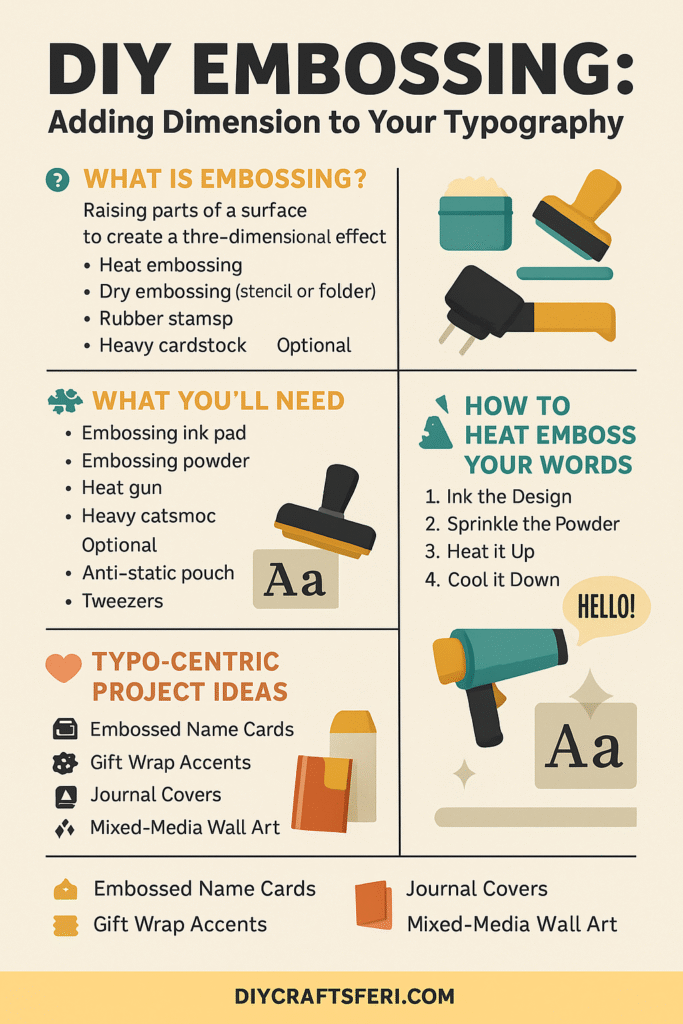
You know that glossy, slightly puffy lettering on fancy wedding invites? Yup, that’s embossing. And today, you’re going to learn how to make that magic yourself.
✨ What Is Embossing?
Embossing is the process of raising parts of a surface to create a three-dimensional effect. In our crafty world, it usually means:
Heat Embossing (the most common type for crafters)
Dry Embossing (pressed patterns, often using stencils or folders)
Today, we’ll focus on heat embossing, which is perfect for typographic projects. Because if there’s anything that deserves the spotlight, it’s your beautifully chosen fonts.
🛠️ What You’ll Need:
Embossing ink pad (clear, sticky ink)
Embossing powder (available in lots of colors and finishes!)
Heat gun (not a hair dryer—those don’t get hot enough!)
Rubber stamps or hand-lettering tools
Heavy cardstock or craft paper
Optional:
Anti-static pouch (to avoid stray powder specks)
Tweezers (unless you enjoy scalding your fingertips—your call)
🔡 Typography That Pops
Some font types emboss better than others. Here’s what to keep in mind:
Bold fonts look best—the raised surface highlights thicker strokes
Script fonts create beautiful flowing emboss lines
Outline fonts + embossing = crisp dimensional magic
Avoid ultra-thin or grungy fonts—they tend to lose detail in the powder melt
🧪 How to Heat Emboss Your Words
Ink the Design
Use your stamp or pen with embossing ink. Be generous—but not gloopy. -
Sprinkle the Powder
Immediately coat the inked area with embossing powder. Tap off the excess onto scrap paper and funnel it back into the container. Waste not! -
Heat It Up
Use your heat gun to melt the powder. Hold the gun a few inches away and keep it moving to avoid scorching. -
Cool It Down
Watch your design magically raise and shine. Let it cool completely before touching.
💌 Typo-Centric Project Ideas
1. Embossed Name Cards
Write names or words like “Cheers” or “Welcome” in a bold serif font and emboss them onto cardstock.
2. Gift Wrap Accents
Use letter stamps to add shiny, raised greetings on gift tags and wrap.
3. Journal Covers
Emboss empowering words or your initials on the front cover of a DIY journal.
4. Mixed-Media Wall Art
Combine hand lettering and embossing with paint, collage, or ink for a dynamic statement piece.
🔍 Font Pairing Tip of the Day:
Use a script font for the embossed word and a clean sans-serif for accompanying flat text or printed elements. The contrast creates both hierarchy and texture.
🧠 Unique Fact of the Day:
The embossing process was originally used in bookbinding in the 1400s to decorate leather-bound books. Back then, it was done with heavy metal presses. Now? Just a zap with your crafty heat gun and you’re in the embossing biz.
🧙♀️ Pro Tips:
Try metallic powders (gold, copper, silver) for extra drama
Use a light ink pad and colored powder combo for unique effects
Combine with watercolor backgrounds for a dreamy look
Want reverse embossing? Try resist embossing—stamp, emboss, then watercolor over it
✍️ Today’s Challenge:
Emboss a favorite quote using two different fonts and powders. Snap a pic of the finished piece glowing under the light—you’ll feel like a typography wizard.